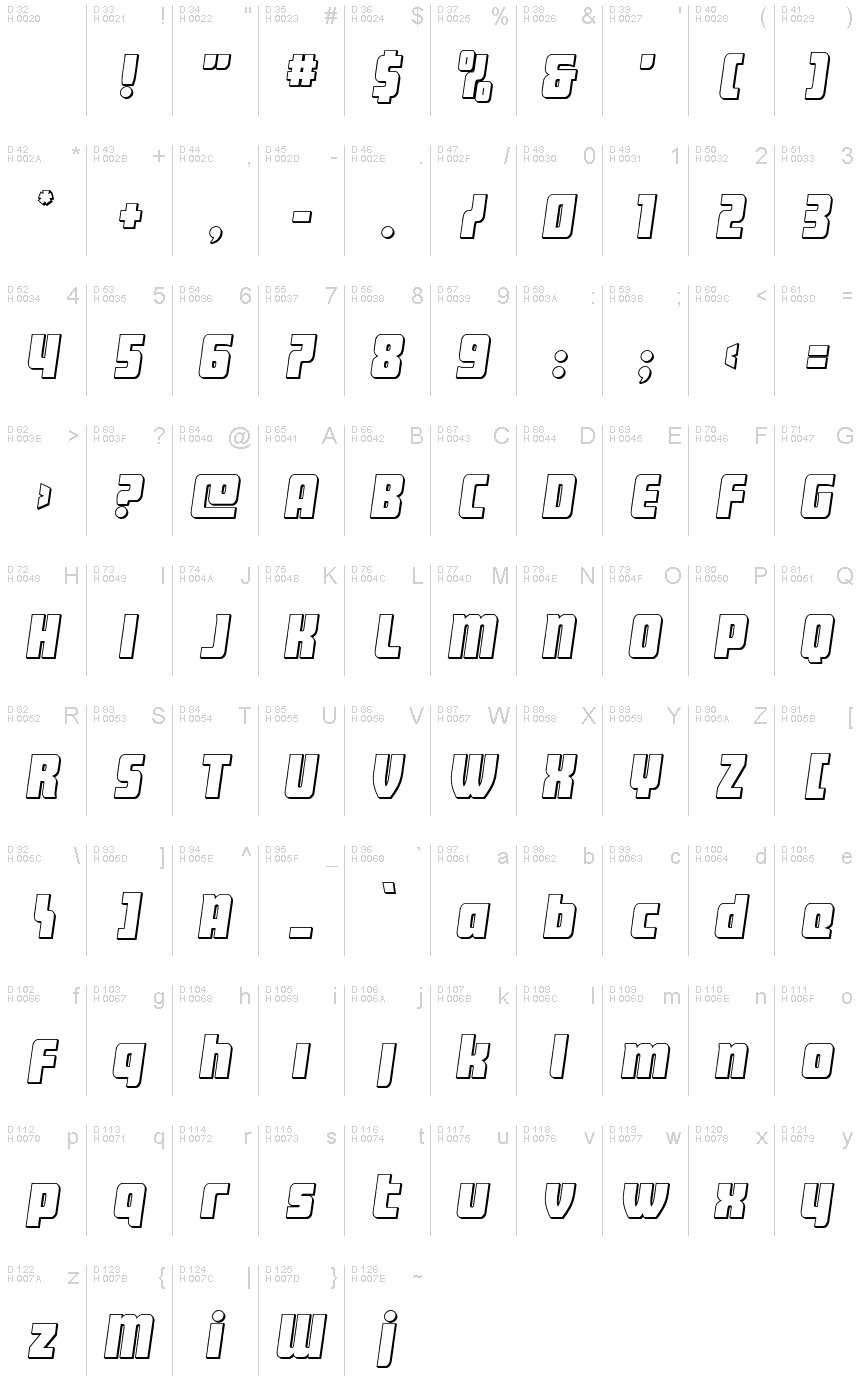
Intrepid Spear LC 3D
The Intrepid Spear LC 3D font, crafted by Iconian Fonts, stands out as a dynamic member of the Intrepid Spear font family. With its bold, condensed profile and three-dimensional techno flair, this display typeface exudes modernity and strength. The sharp lines and solid form convey a sense of precision and forward-thinking design.
Visually arresting, the Intrepid Spear LC 3D is designed to make an impact. Its assertive presence is softened by the subtle play of light and shadow across its faceted surfaces, lending depth and vitality to each character. Whether used for headlines, logos, or promotional material, this font promises to inject your project with contemporary sophistication.
The two sub-families—Regular and Lower Case—offer versatile options for creative expression while maintaining a cohesive aesthetic throughout your design. Ideal for industries such as technology, gaming, or entertainment where a cutting-edge look is paramount; Intrepid Spear LC 3D will help your message stand out in an ever-competitive visual landscape.
Visually arresting, the Intrepid Spear LC 3D is designed to make an impact. Its assertive presence is softened by the subtle play of light and shadow across its faceted surfaces, lending depth and vitality to each character. Whether used for headlines, logos, or promotional material, this font promises to inject your project with contemporary sophistication.
The two sub-families—Regular and Lower Case—offer versatile options for creative expression while maintaining a cohesive aesthetic throughout your design. Ideal for industries such as technology, gaming, or entertainment where a cutting-edge look is paramount; Intrepid Spear LC 3D will help your message stand out in an ever-competitive visual landscape.